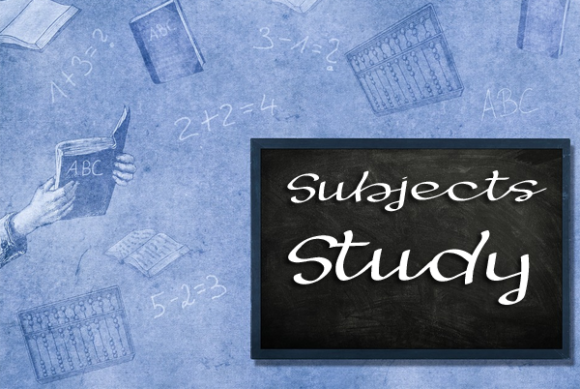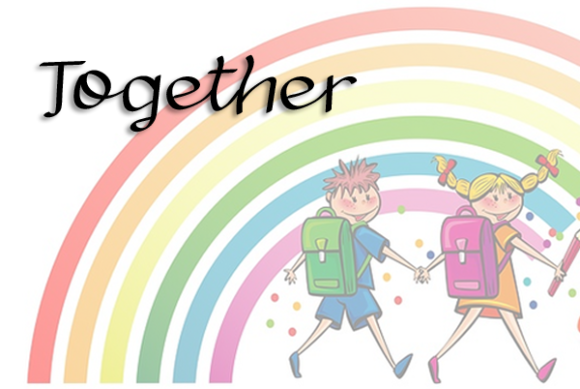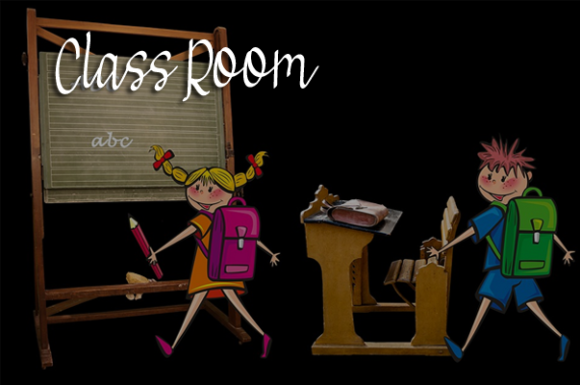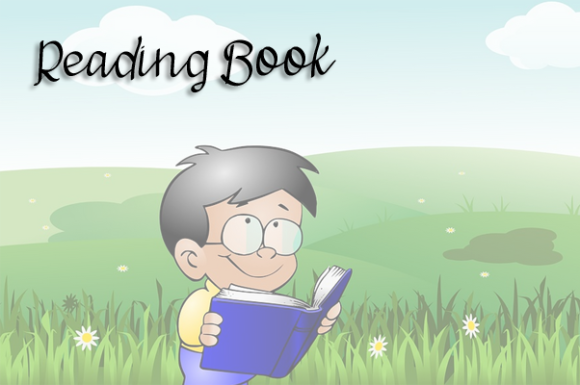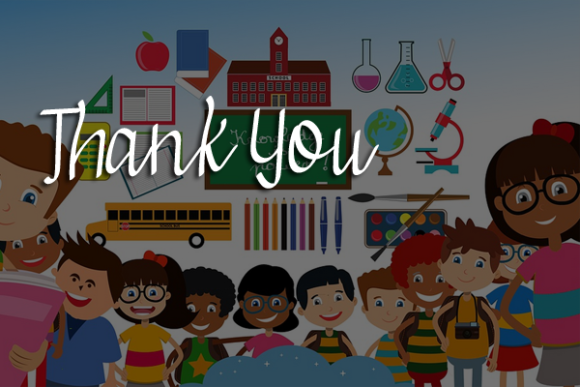
Back to School Font: Add a Playful Touch to Your Designs
As the summer months come to an end, designers and crafters are gearing up for the new school year. Whether you’re creating materials for a school project, crafting invitations for a back-to-school party, or simply looking for a fresh font to add to your collection, the Back to School Font is an excellent choice. This lovely script font features charming, playful characters that seem to dance along the baseline, making it perfect for adding a touch of whimsy to your designs.
What Makes Back to School Font So Special?
The Back to School Font is a unique and eye-catching script font that is sure to make your designs stand out. Its charming, playful characters are carefully crafted to give your text a sense of movement and energy. The font’s playful nature makes it ideal for use in a variety of design projects, from school-themed crafts to party invitations and more.
Key Features of Back to School Font
• Playful Characters: The font features charming, playful characters that seem to dance along the baseline, adding a touch of whimsy to your designs.
• Script Font: The Back to School Font is a script font, making it perfect for use in creative projects where you want to add a personal touch.
• Easy to Read: Despite its playful nature, the font is easy to read, making it suitable for use in a variety of design projects.
• Versatile: The font can be used in a range of design projects, from school-themed crafts to party invitations and more.
Uses for Back to School Font
The Back to School Font is a versatile font that can be used in a variety of design projects. Here are some ideas to get you started:
• School-Themed Crafts: Use the font to create custom signs, banners, and other decorations for school-themed crafts.
• Party Invitations: Add a playful touch to your party invitations with the Back to School Font.
• DIY Projects: Use the font to add a personal touch to your DIY projects, such as handmade cards and gift tags.
• Graphic Design: The font is perfect for use in graphic design projects, such as creating custom logos and branding materials.
Tips for Using Back to School Font
Here are some tips for using the Back to School Font in your designs:
• Experiment with Colors: The font looks great in a variety of colors, so don’t be afraid to experiment and find the perfect color scheme for your design.
• Mix and Match: Try mixing and matching the Back to School Font with other fonts to create a unique and eye-catching design.
• Use in Combination with Images: The font looks great in combination with images, so try using it to add a personal touch to your photos and illustrations.
The Back to School Font is a unique and eye-catching script font that is sure to add a playful touch to your designs. With its charming, playful characters and versatile nature, it’s perfect for use in a variety of design projects. Whether you’re a designer, crafter, or simply someone who loves to get creative, the Back to School Font is an excellent choice. So why not give it a try and see how it can make your designs stand out?
• What type of font is Back to School Font? The Back to School Font is a script font.